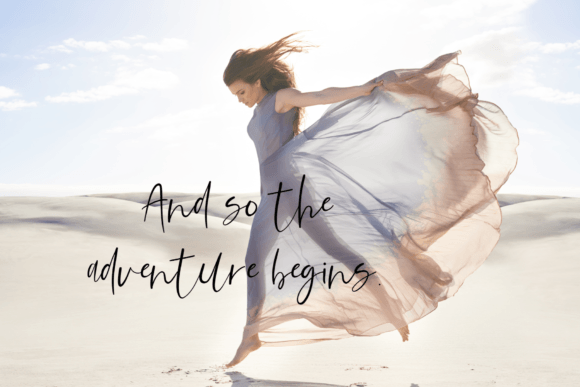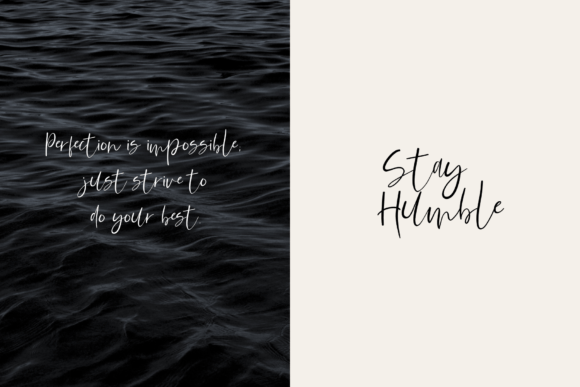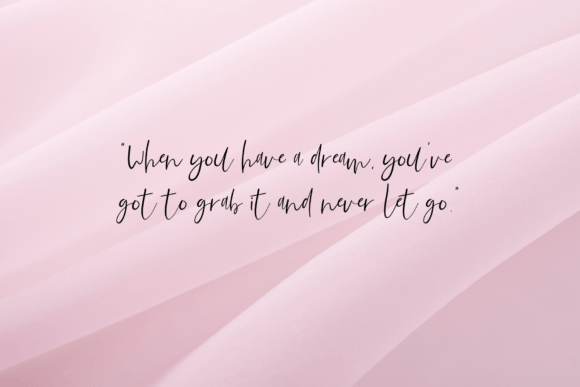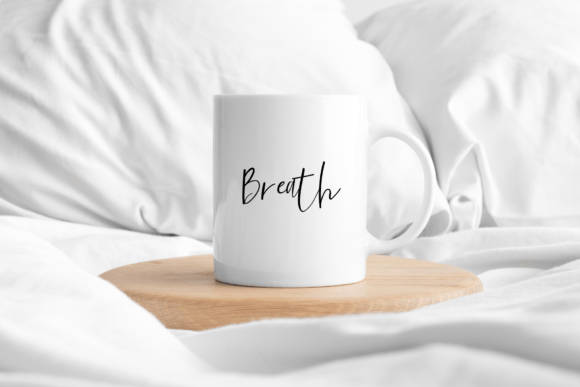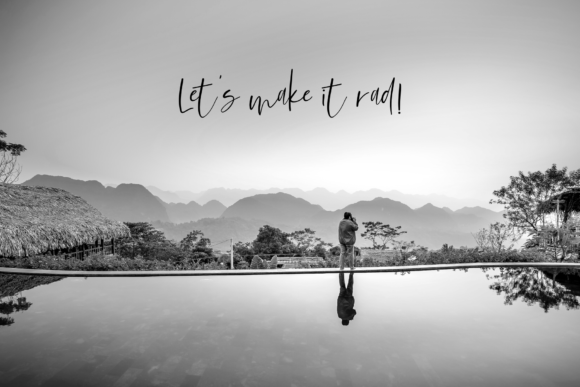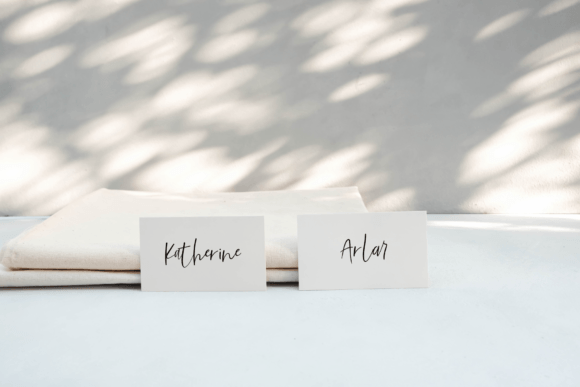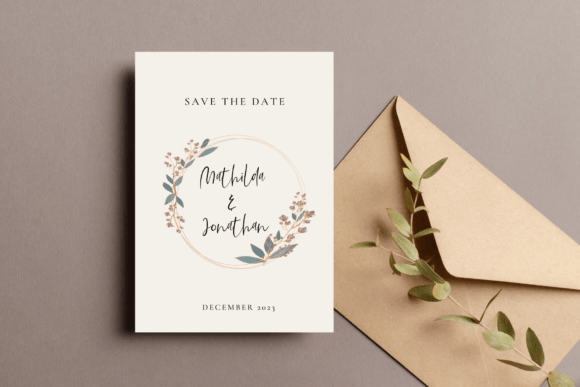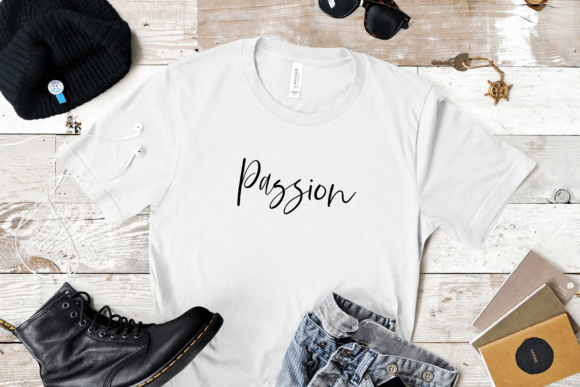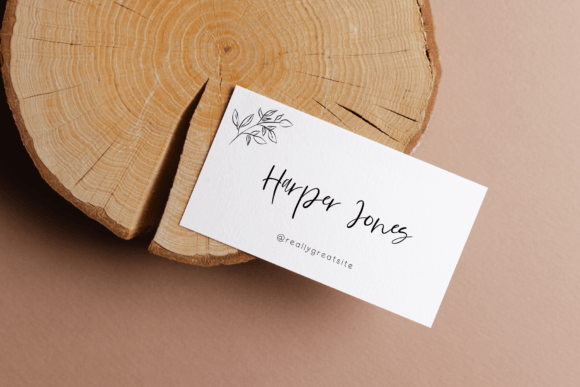
Rorttitor Font
**Rorttitor Script Font: Infuse Handcrafted Elegance into Your Designs**
Meet Rorttitor, a captivating script font meticulously crafted to bring a beautiful, handcrafted aesthetic to your projects. This hand-drawn typeface is the ideal choice for adding a unique and authentic touch to your work. Discover why Rorttitor is the perfect font for effortlessly infusing your designs with an authentic hand-lettered charm:
1. **Handcrafted Appeal:** Rorttitor boasts elegantly hand-drawn letterforms that exude a sense of artistry and craftsmanship. It elevates your designs with a distinctive handcrafted look.
2. **Versatile Usage:** This script font’s versatility makes it suitable for a wide range of design applications. Whether you’re working on branding, invitations, blogs, or planners, Rorttitor effortlessly enhances your creative vision.
3. **Branding Brilliance:** Create memorable logos and branding materials with Rorttitor. Its unique hand-lettered style ensures your brand identity stands out and leaves a lasting impact.
4. **Invitations and Stationery:** Design captivating wedding invitations, event stationery, or personalized greeting cards with Rorttitor. It adds a touch of elegance and personalization to special occasions.
5. **Blog and Online Presence:** Elevate the visual appeal of your blog or website with Rorttitor. Use it for headers, titles, featured content, and more to give your online presence an authentic handcrafted aesthetic.
6. **Planners and Journals:** Incorporate Rorttitor into planner designs, journal layouts, or bullet journal templates. Its hand-drawn elegance enhances the appearance of organization and planning materials.
7. **Social Media Graphics:** Craft eye-catching social media graphics, posts, and captions with Rorttitor. It imparts an authentic, hand-lettered charm to your Instagram, Pinterest, or Facebook content.
8. **DIY Projects:** Enhance your DIY crafting projects with Rorttitor. Whether you’re creating custom decorations, labels, or handmade gifts, this font adds a touch of handcrafted charm to your creations.
9. **Easy Hand-Lettered Feel:** Rorttitor offers the allure of hand-lettering without the need for manual handwriting. It simplifies the process of achieving a handcrafted look in your designs.
10. **Creative Freedom:** Rorttitor provides ample room for creative expression with its unique character and style. It allows for customization and personalization while maintaining a polished and elegant appearance.
Rorttitor is a valuable asset for designers, bloggers, event planners, and anyone seeking to infuse their projects with handcrafted elegance. Its hand-drawn aesthetics and versatility make it an excellent choice for various creative endeavors. Whether you’re working on branding, invitations, online content, or DIY crafts, Rorttitor effortlessly elevates your designs with captivating, handcrafted charm.